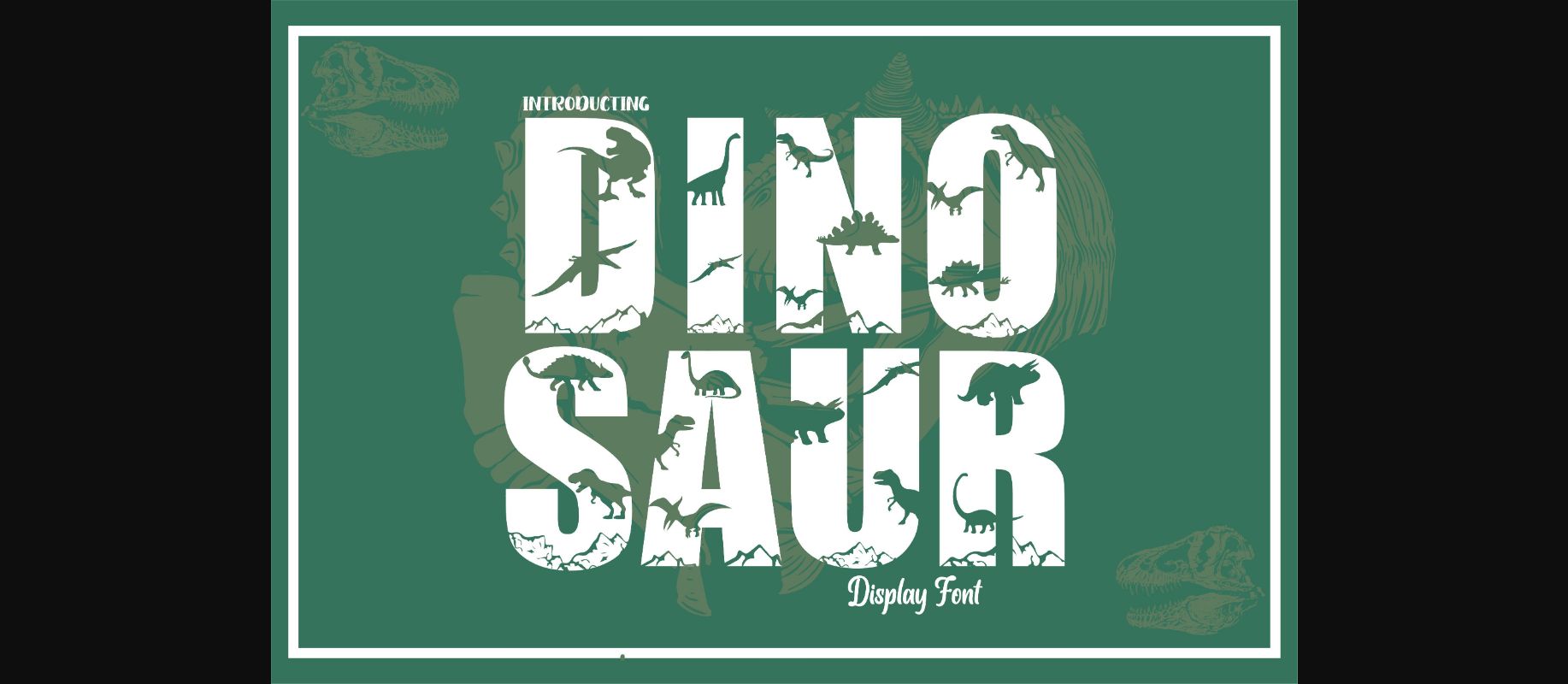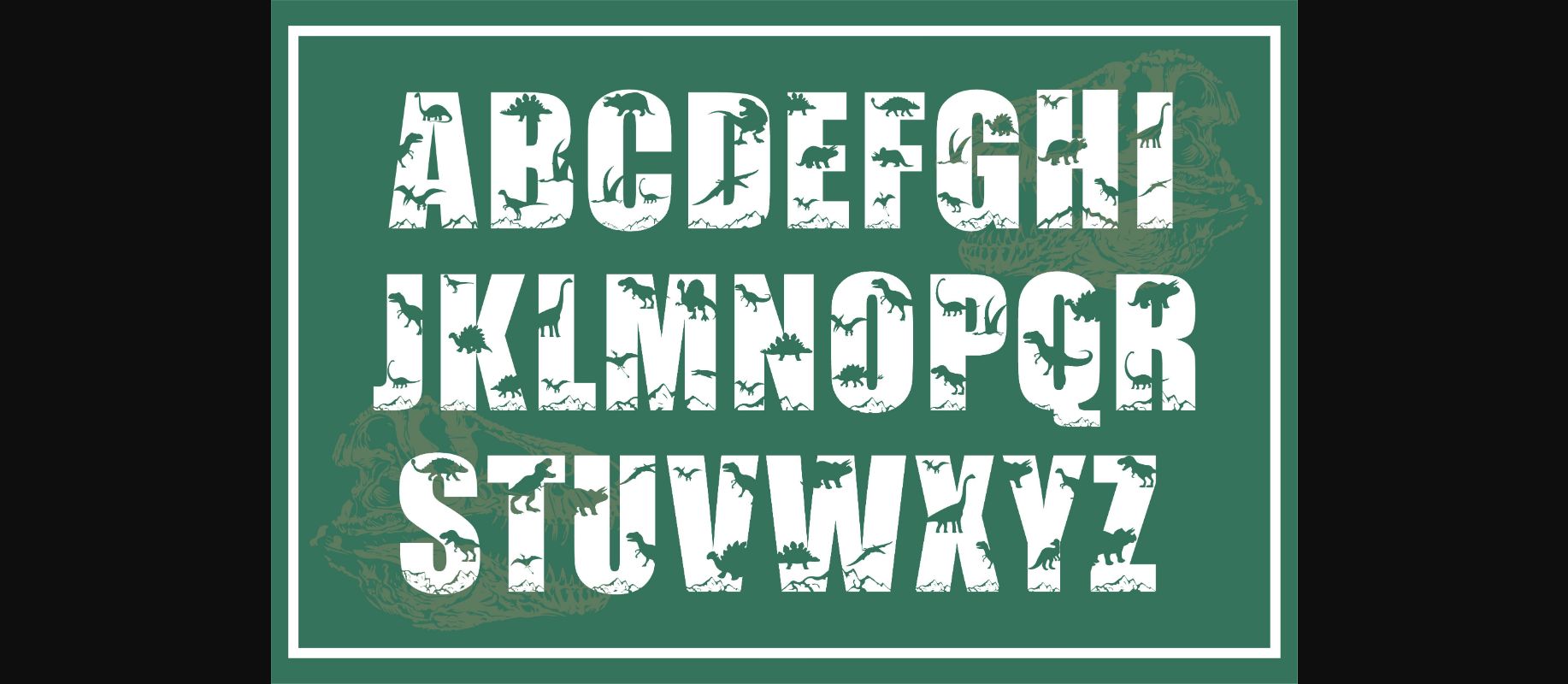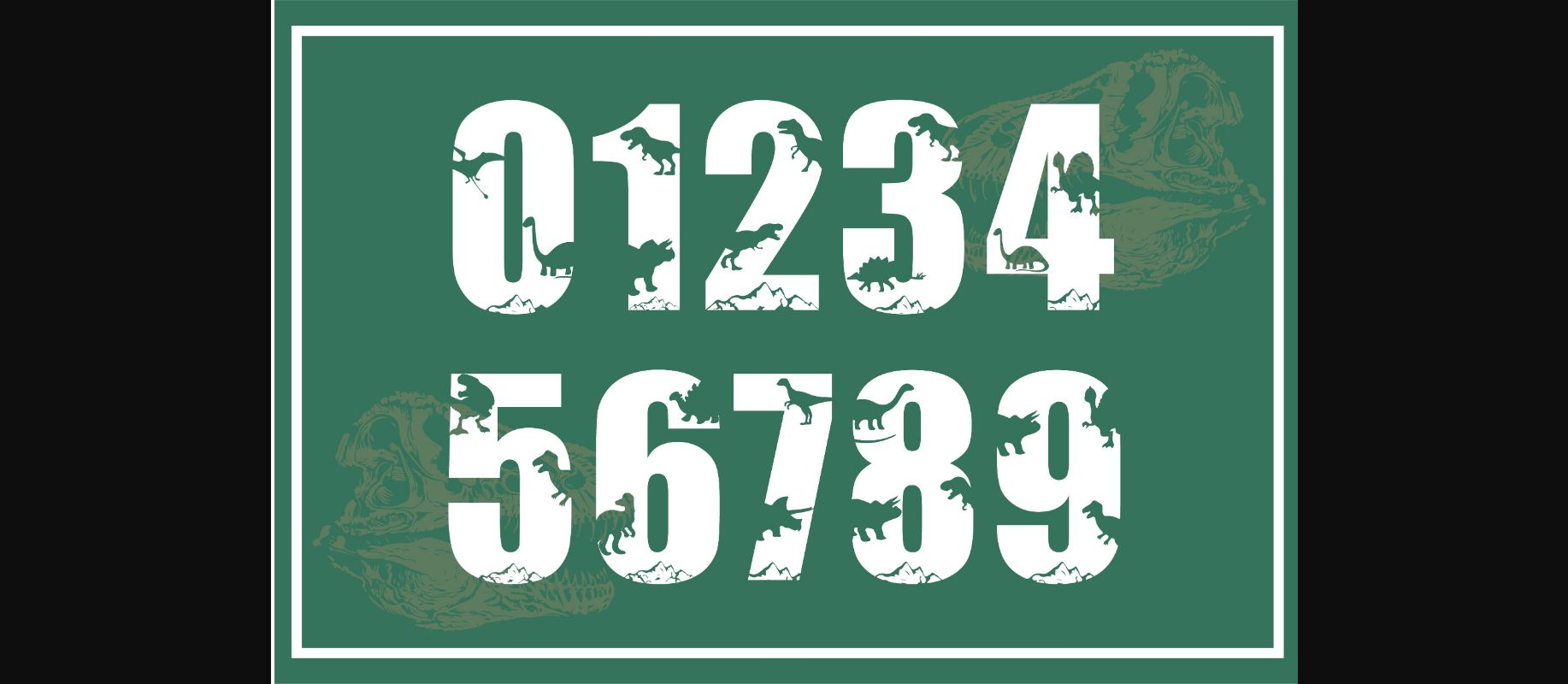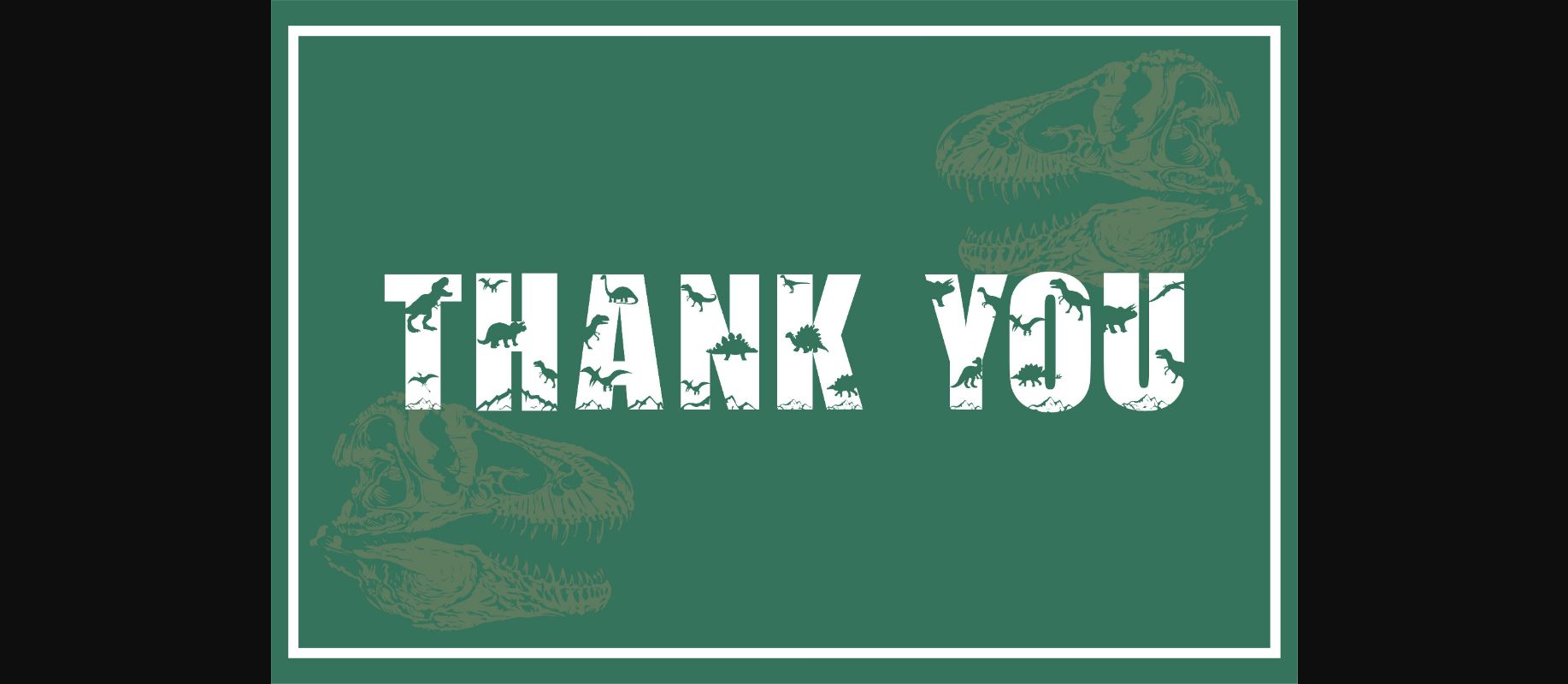
HomeDecorative FontsDinosaur Font Decorative Fonts Dinosaur Font FacebookXPinterestWhatsApp 1 of 6 ... Dinosaur Font Poster 2... Dinosaur Font Poster 3... Dinosaur Font Poster 4... Dinosaur Font Poster 5... Dinosaur Font Poster 6... About Dinosaur Font Dinosaur is a thick-lettered and fun-looking decorative font. It is perfect for children-themed designs, especially when combined with bright colors. DOWNLOAD NOW People also explored Angelic Sonata Font Option Font Hey Olivia Script Font Swister Naily Font Beauty Font Chilli Font Orbitens Font Candle Mustard Font 376 0 TagsDinosaur Font Previous articleCancer FontNext articleFancy Font LEAVE A REPLY Cancel reply Comment: Please enter your comment! Name:* Please enter your name here Email:* You have entered an incorrect email address! Please enter your email address here Website: Save my name, email, and website in this browser for the next time I comment. Personal Use Free True Love Personal Use Free Read more about this font Ontel Personal Use Free Read more about this font Gunplay Personal Use Free Read more about this font Mariyam Personal Use Free Read more about this font BLOG Modern Sans-Serif Fonts That Brands Love in 2025 In 2025, modern sans-serif fonts remain a top choice for brands looking to project clarity, professionalism, and... Using Fonts in Digital Marketing: Tips to Strengthen Your Brand Identity Exploring Font Trends To increase your work productivity, choose the most readable fonts.